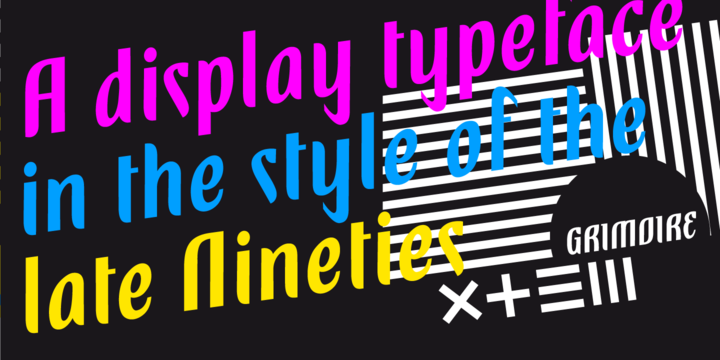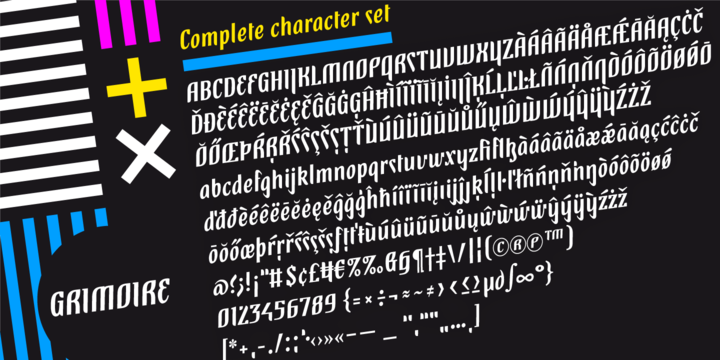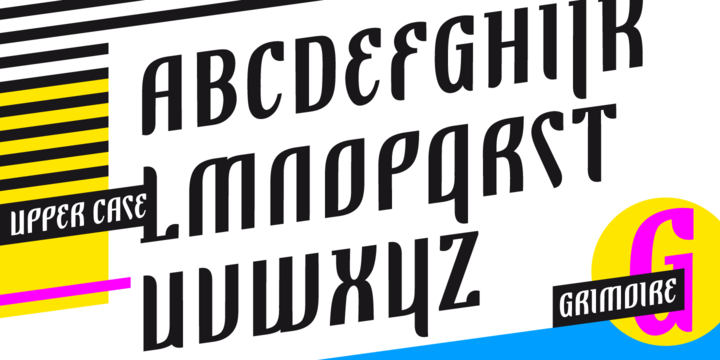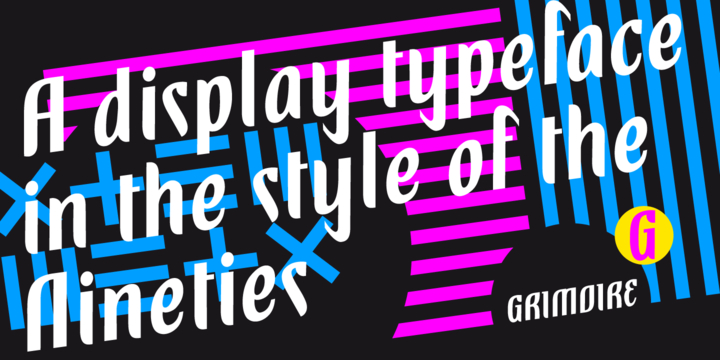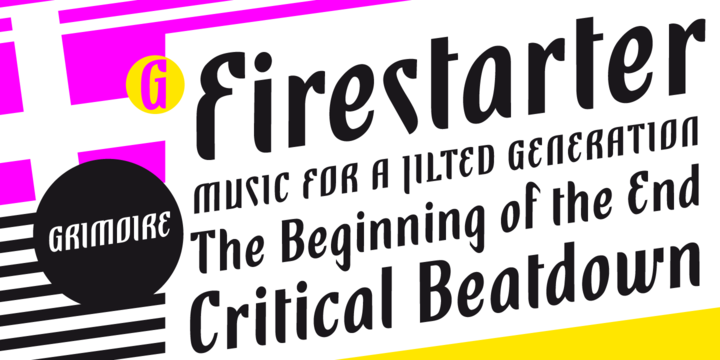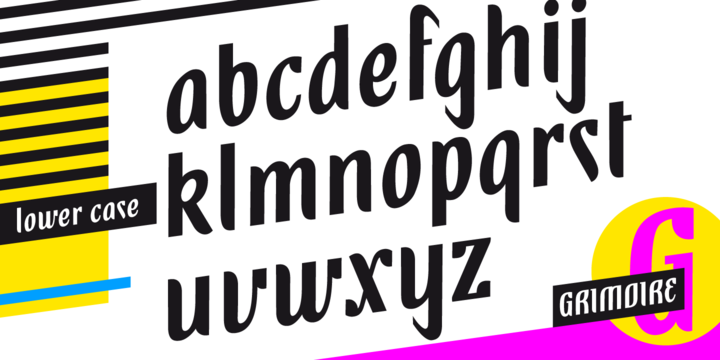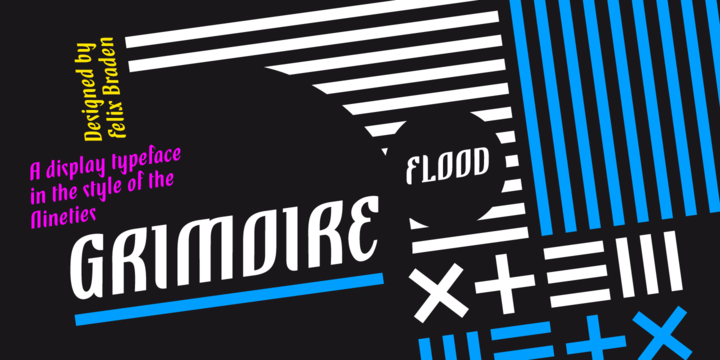
Grimoire Font
Grimoire on the other hand combines two seemingly contradicting principles — calligraphic and constructive ideas — and makes them work together. The font is based on a modular system but simulates a handwritten typeface. Felix Braden about this concept: “I was so fascinated by this idea, that I have since designed a couple of typefaces following this principle, e.g. the psychedelic Bikinireleased by Volcanotype. Even my recent work, the multi awarded FF Scuba is inspired by this concept, however with increasing age I have become less interested in experimental typography and more so in designing typefaces which are more versatile in use.”